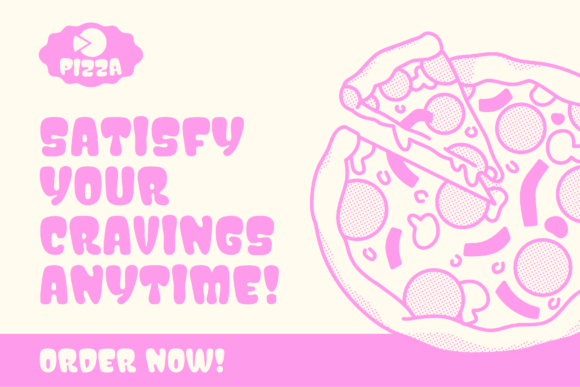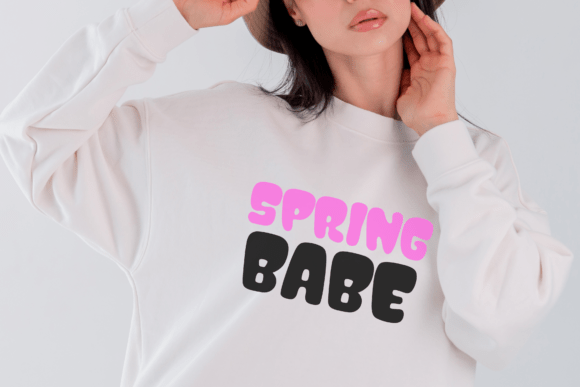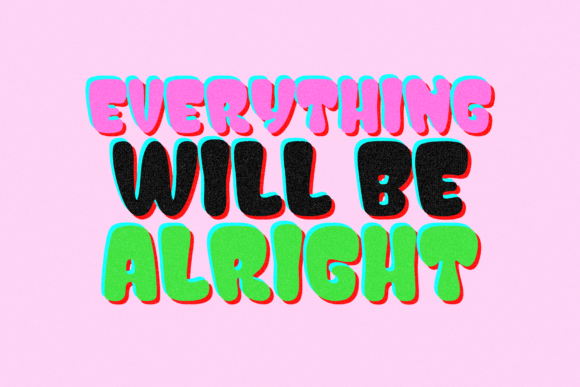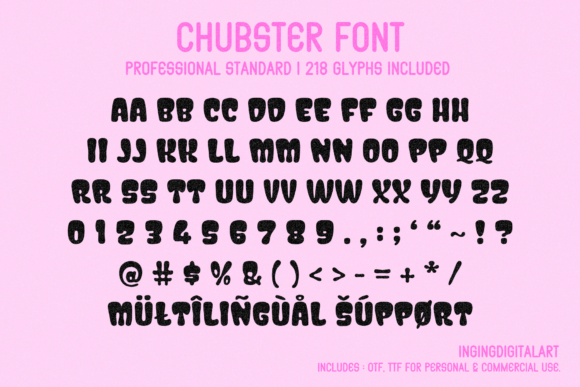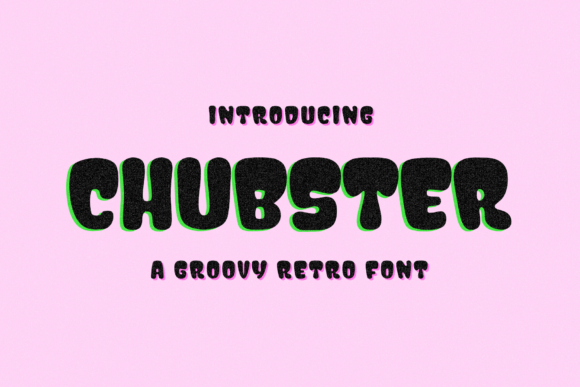
Introducing Chubster Font: The Ultimate Game-Changer for Designers and Crafters
Are you tired of using the same old fonts for your designs and crafts? Look no further! Chubster Font is here to revolutionize the way you create and take your work to the next level. This unique, hand-drawn font is designed to add a playful and cute touch to any project, making it perfect for designers and crafters who want to stand out from the crowd.
The Unique Characteristics of Chubster Font
Chubster Font boasts a distinctive, round, chubby, and super cute character set that is sure to capture attention. Each letter is carefully hand-drawn to create a bubbly and friendly vibe that instantly elevates your designs. The font’s playful nature makes it ideal for creating cool designs, such as:
- Unique branding and logos
- Craft decor and DIY projects
- Invitations and party decorations
What Sets Chubster Font Apart
So, what makes Chubster Font so special? Here are just a few features that set it apart from other fonts:
- All caps glyphs: Chubster Font includes a full set of all caps glyphs, perfect for creating bold and eye-catching designs.
- Numbers and basic punctuation marks: The font also includes numbers and basic punctuation marks, making it a versatile and practical choice for a wide range of projects.
- Hand-drawn and unique: Each character is carefully hand-drawn, ensuring that your designs are one-of-a-kind and truly special.
Bringing a Friendly and Warm Vibe to Your Designs
Chubster Font is designed to bring a friendly and warm vibe to your designs, making it perfect for projects that require a personal touch. Whether you’re creating:
- A brand identity for a children’s product
- A set of invitations for a birthday party
- A social media post for a craft business
Chubster Font is sure to add a touch of warmth and personality that will resonate with your audience.
Tips for Using Chubster Font
To get the most out of Chubster Font, here are a few tips:
- Experiment with colors: Chubster Font looks great in a variety of colors, so don’t be afraid to get creative and try out different palettes.
- Mix and match: Combine Chubster Font with other fonts and design elements to create a unique and eye-catching design.
- Keep it playful: Chubster Font is all about having fun, so don’t be afraid to let your personality shine through in your designs.
In conclusion, Chubster Font is a game-changer for designers and crafters who want to add a playful and cute touch to their work. With its unique, hand-drawn characters and friendly vibe, this font is sure to make your designs stand out and catch attention. So why wait? Download Chubster Font today and start creating designs that are truly one-of-a-kind!